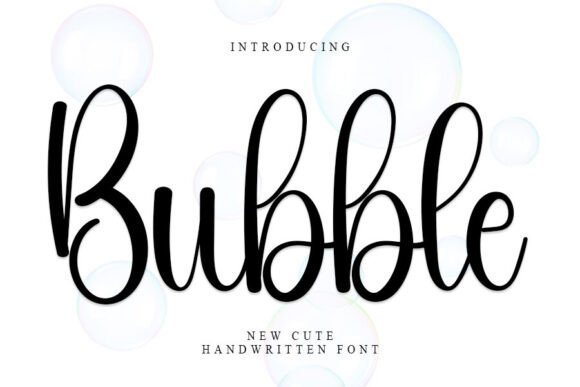
The Joy of Bubble Font: Adding a Playful Touch to Your Designs
I’ll never forget the time I was working on a project for a children’s birthday party, and I just couldn’t find the right font to capture the playful vibe I was going for. The client wanted something fun, cheerful, and engaging, but everything I tried seemed either too boring or too over-the-top. That’s when I stumbled upon Bubble Font, and it was love at first sight! ✨
Bubble is a cute and fun handwritten font with soft, round letters that’s perfect for adding a playful and cheerful touch to cards, posters, or crafts. Its bubbly style makes everything look warm and friendly, and it’s quickly become one of my go-to fonts for projects that need a little extra personality.
An Honest Review of Bubble Font
- ✨ Soft and rounded letters that are easy on the eyes
- ✅ Perfect for projects that need a playful and cheerful vibe
- 🎉 Great for use in titles, headings, and short paragraphs of text
- 💕 Works well with both digital and print projects
- 🤔 May not be the best choice for body text or long paragraphs, as it can be a bit hard to read
- ⚠️ Some letters may appear a bit irregular or imperfect, which can be a deliberate design choice but may not work for every project
- Take advantage of OpenType features like glyphs and stylistic alternates to add more personality to your text
The Story Behind Bubble Font
Bubble Font was designed by a team of creatives who wanted to create a font that would bring a smile to people’s faces. They were inspired by the playful and whimsical world of childhood, and they wanted to capture that sense of wonder and curiosity in their design. The result is a font that’s both fun and functional, perfect for projects that need a little extra personality.
| Author | NYA Letter |
Q: What is Bubble Font?
A: Bubble Font is a cute and fun handwritten font with soft, round letters that’s perfect for adding a playful and cheerful touch to cards, posters, or crafts.